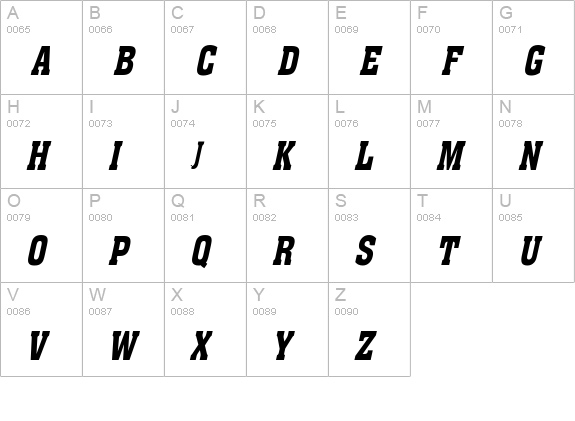
Ache Condensed BoldItalic is a distinctive, condensed-width variant in the Ache typeface family \xE2\x80\x94 well suited to design and typography projects.
Ache Condensed BoldItalic font is a striking and modern typeface that exudes elegance and sophistication. Its bold and italicized design adds a touch of flair to any project, making it perfect for headings, titles, and branding materials. The sleek condensed style of this font allows for maximum impact while saving space on the page. Best of all, Ache Condensed BoldItalic font is completely free to download at FontsMarket.com. With its unique combination of boldness and elegance, this font is sure to make a statement in any design project. Don't miss out on this versatile and eye-catching typeface that will elevate your work to the next level.